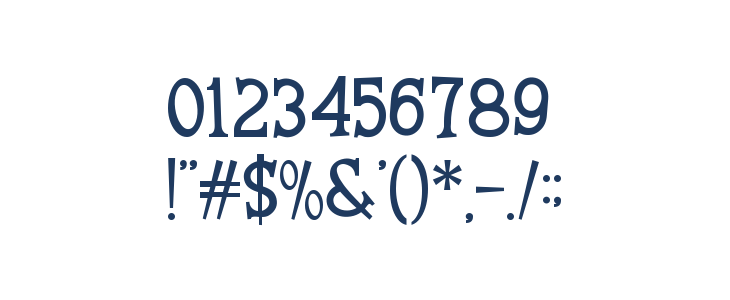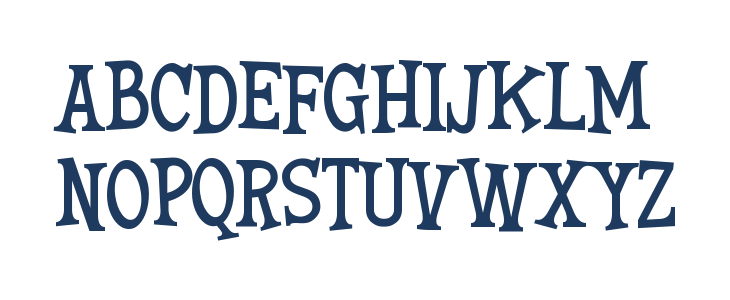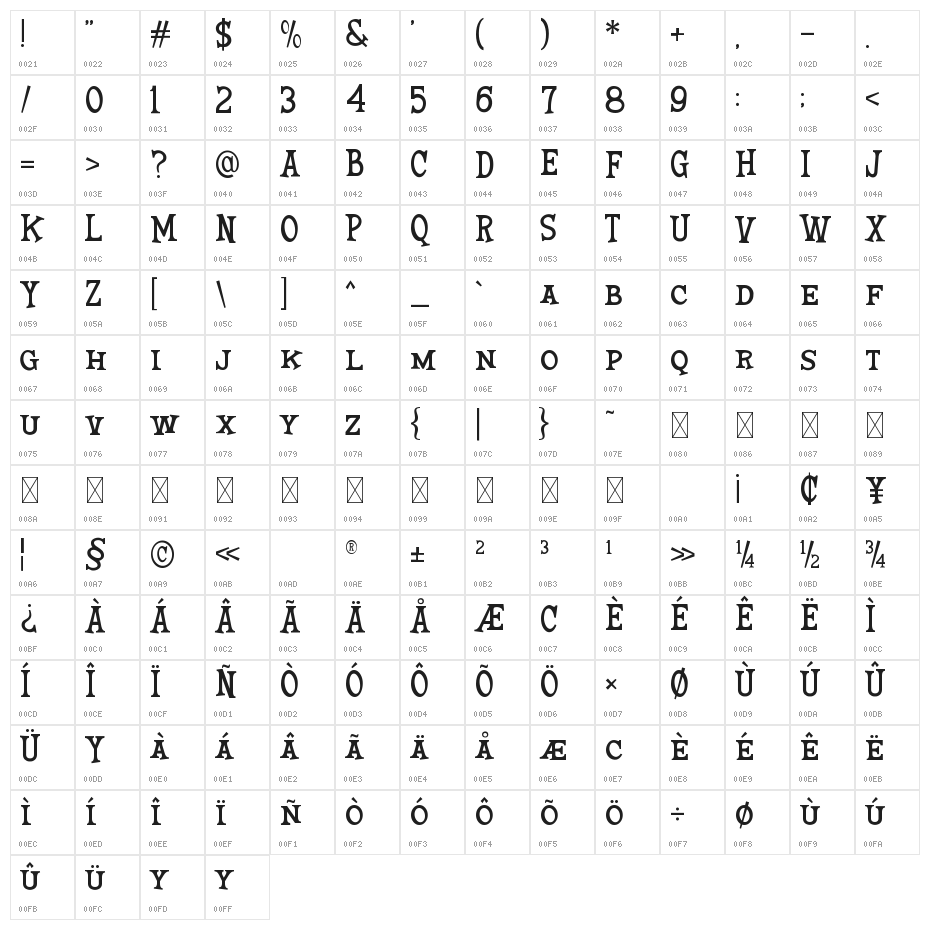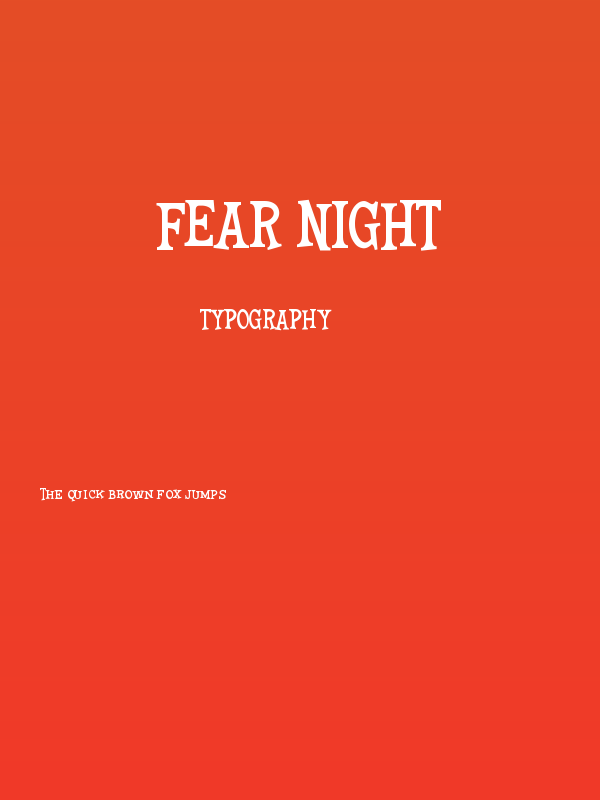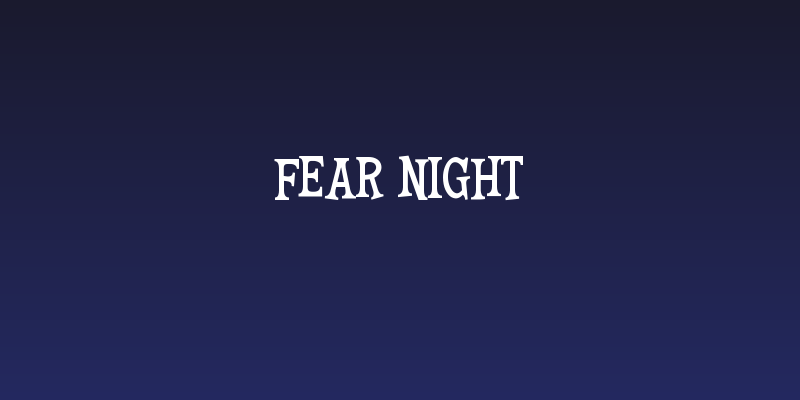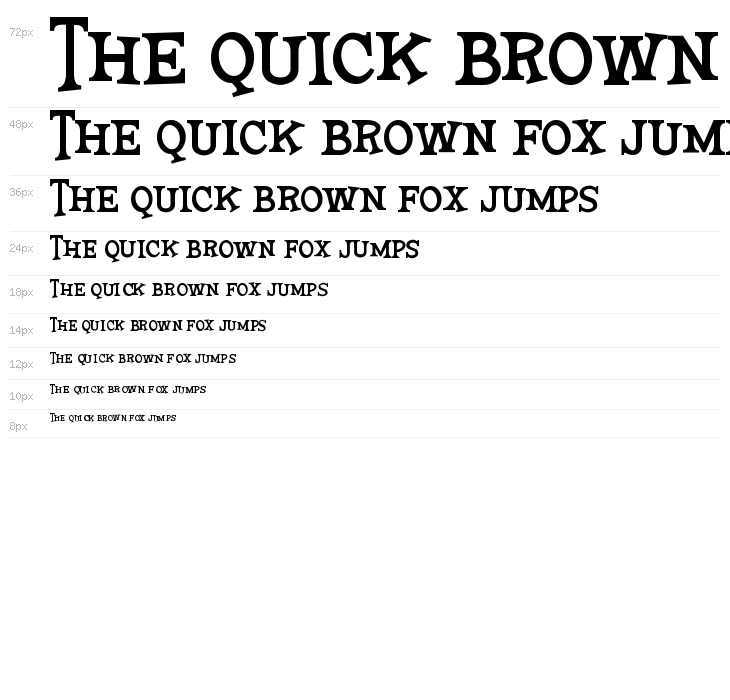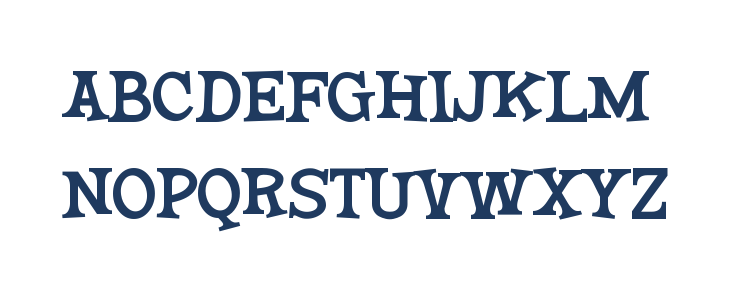
Fear Night Font
Fear Night Description
A bold, decorative serif font with exaggerated, uneven serifs and playful, irregular letterforms. The characters have a hand-drawn, slightly spooky or whimsical appearance, with varying stroke thickness and quirky angles.
| Overall Style | Decorative, Whimsical, Spooky |
| Use Case | Headlines, Posters, Logos, Themed Graphics |
| Proposed Projects | Halloween posters, spooky event invitations, themed branding, children's book titles, party flyers. |